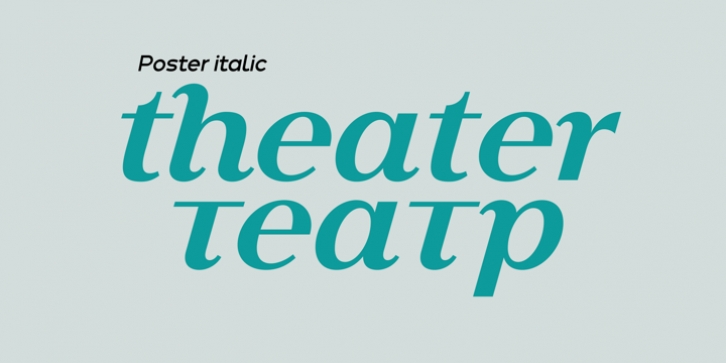
Crox Font Family was designed by Yassine Abdi, and and published by NumidiaType. Crox contains 36 styles and family package options.
Crox is a professional sans-serif font inspired from crude geometry, creativity, and art, It was designed with two families (display and compact width for wide texts and paragraphs), In each family, there are 16 styles, including upright and italic, It is constructed of big lowercase letters with a maximum xHeight for excellent optical reading.
English letters are supported as a numerator and denominator set, this feature may aid in the creation of fractions using letters and numbers, as well as for sophisticated scripting and various scientific fractions forms.
All weights support over 25 professional OpenType features within each style, with extensive coverage of western languages. These features were originally planned for personal and professional use, including multi-alternative characters in Styles: 1, 2, 4, 10, 11.
Operational styles 6, 7 are enhanced with some scientific forms, to write the fit derived (SI units' expressions).
Otherwise, it supports a wide range of professional factory pricing styles for business and marketing, as well as retail pricing styles in Sets 5, 8, and 9, with ligatures, old-style numerals, ordinals, swashes, and so on.
Crox is enhanced with a poster weight like the fantastical type to fulfill your creative needs in three styles: poster, poster oblique, and poster italic for ADS and web design, branding, or product design.
Glyphs:
More than 970, including the glyphs accessible with OpenType features.
Powerful OpenType features:
Standard Ligature, Alternate access, Automatic ordinals (English, Frensh...), Case sensitive, localized forms, Numerator set, Denominator set, Subscript, Superscript, Swash, Stylistic alternate, Styles 1,2,3,4,5(Pricing style 1), 6(Derived Units),7(Advanced Fractions for Scientific units, Derived Units Vulgar Form), Set 8 (Pricing Style 2), Set (Pricing Style 3), Proportional Oldstyle, Tabular Oldstyle, Proportional Lining, Tabular Lining, Zero with slash, Fractions (Default, Automatic).
Suitable for:
logo and modern branding, web design, packaging, Product packaging, Articles, scientific document, Product user guides, multiple works in the Media, Design, ADS...